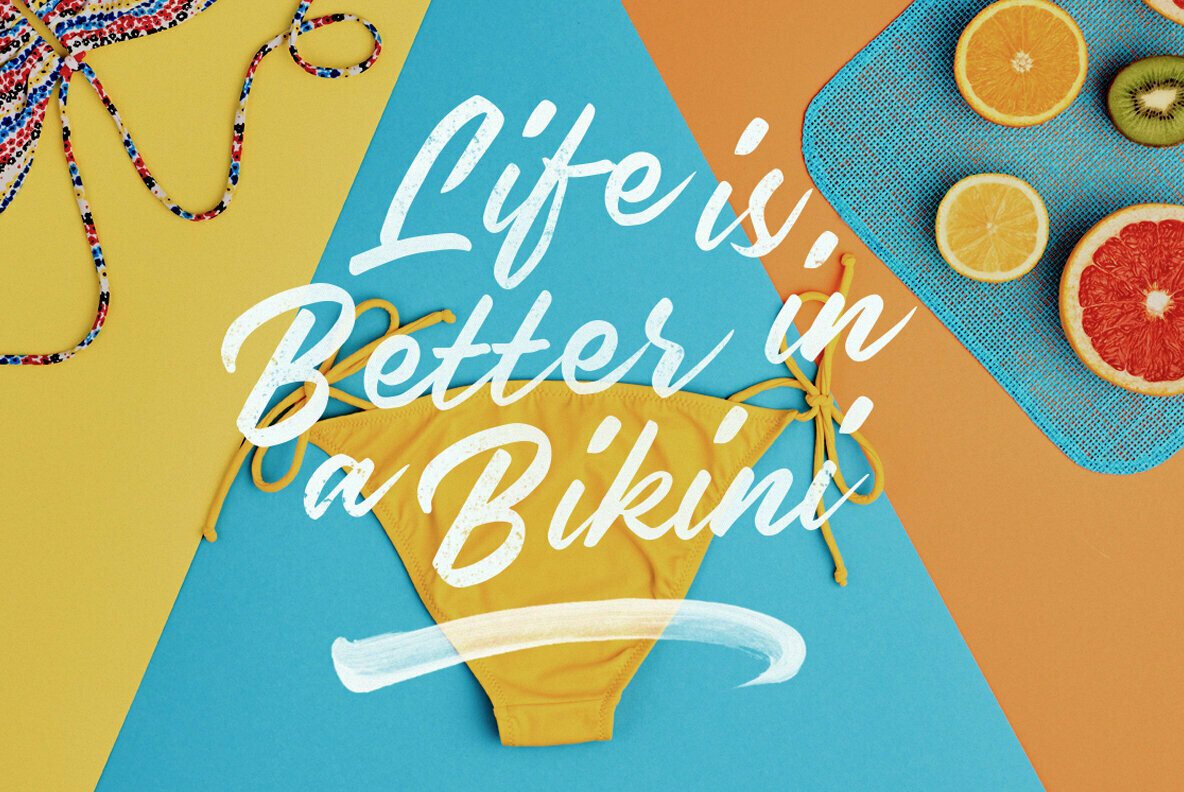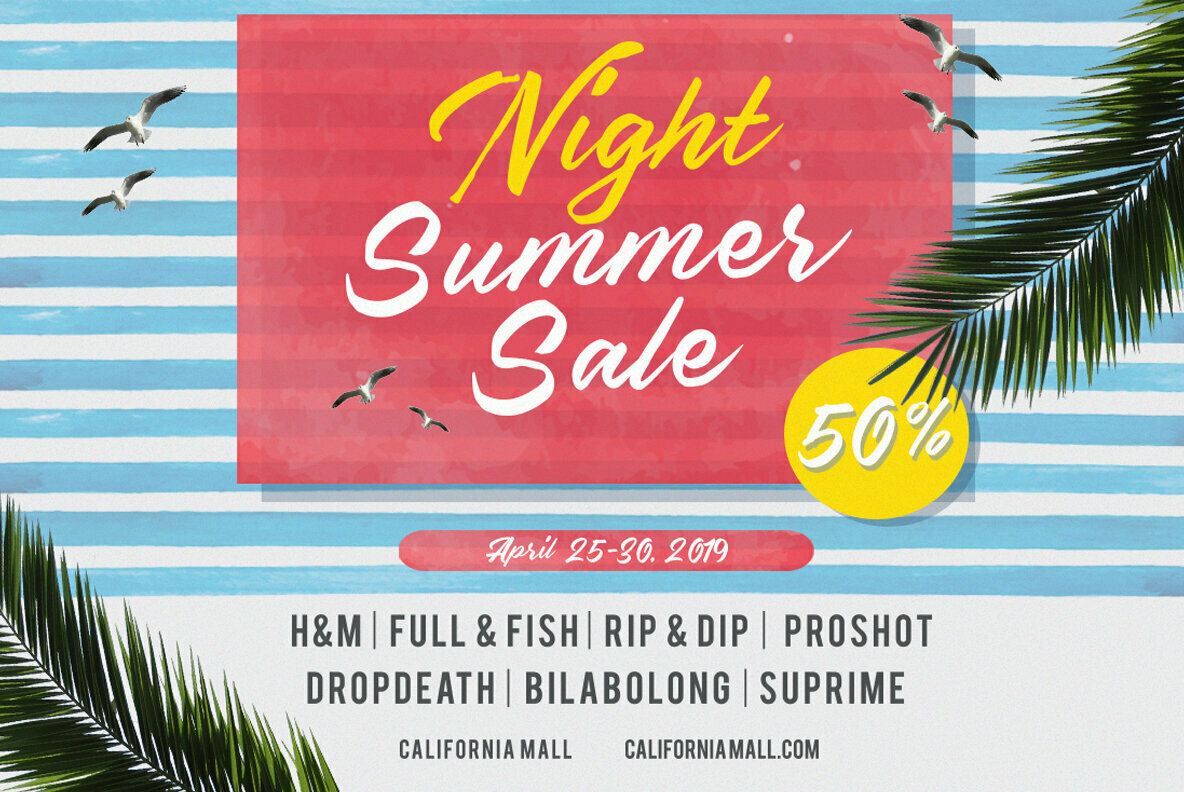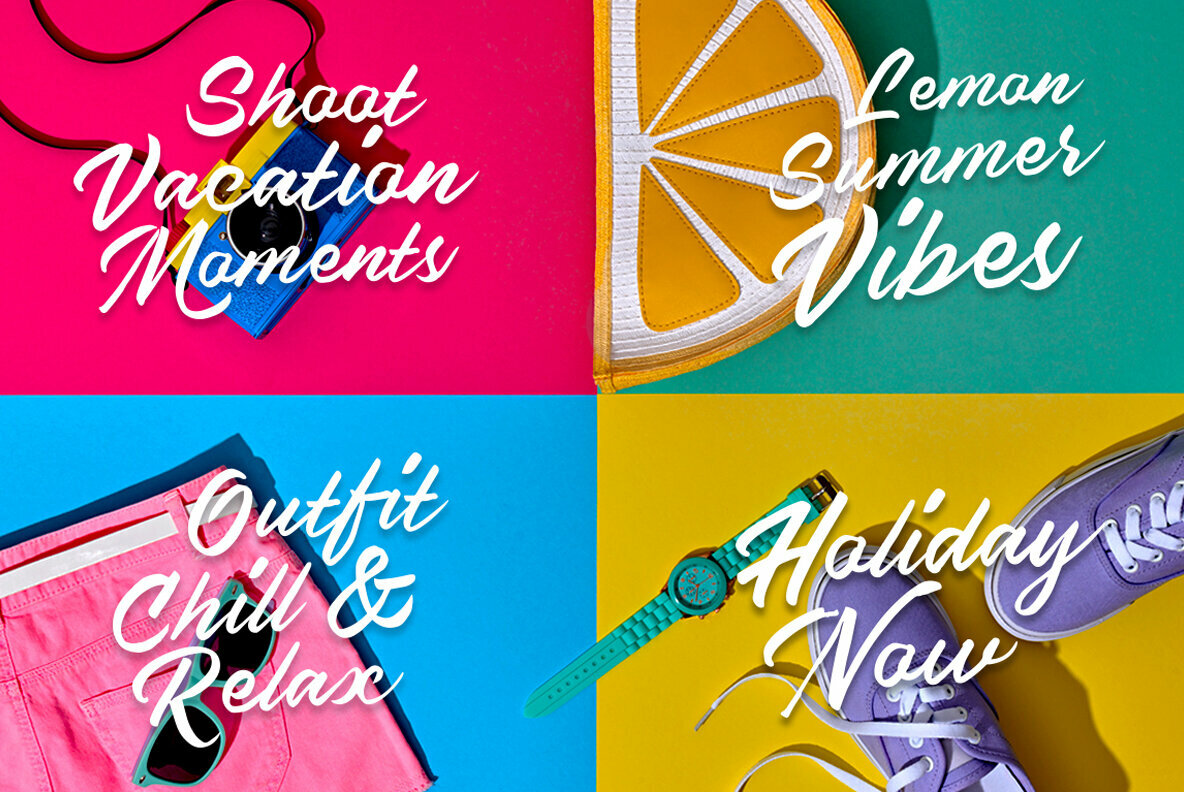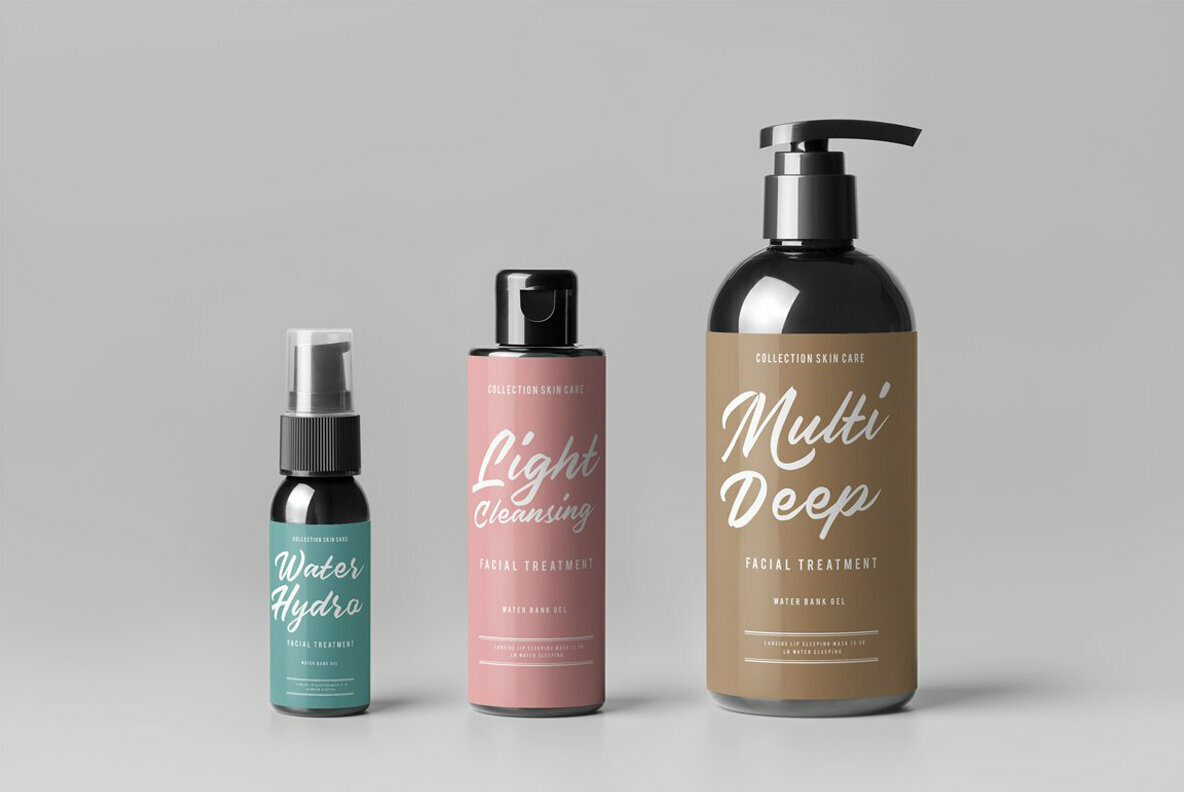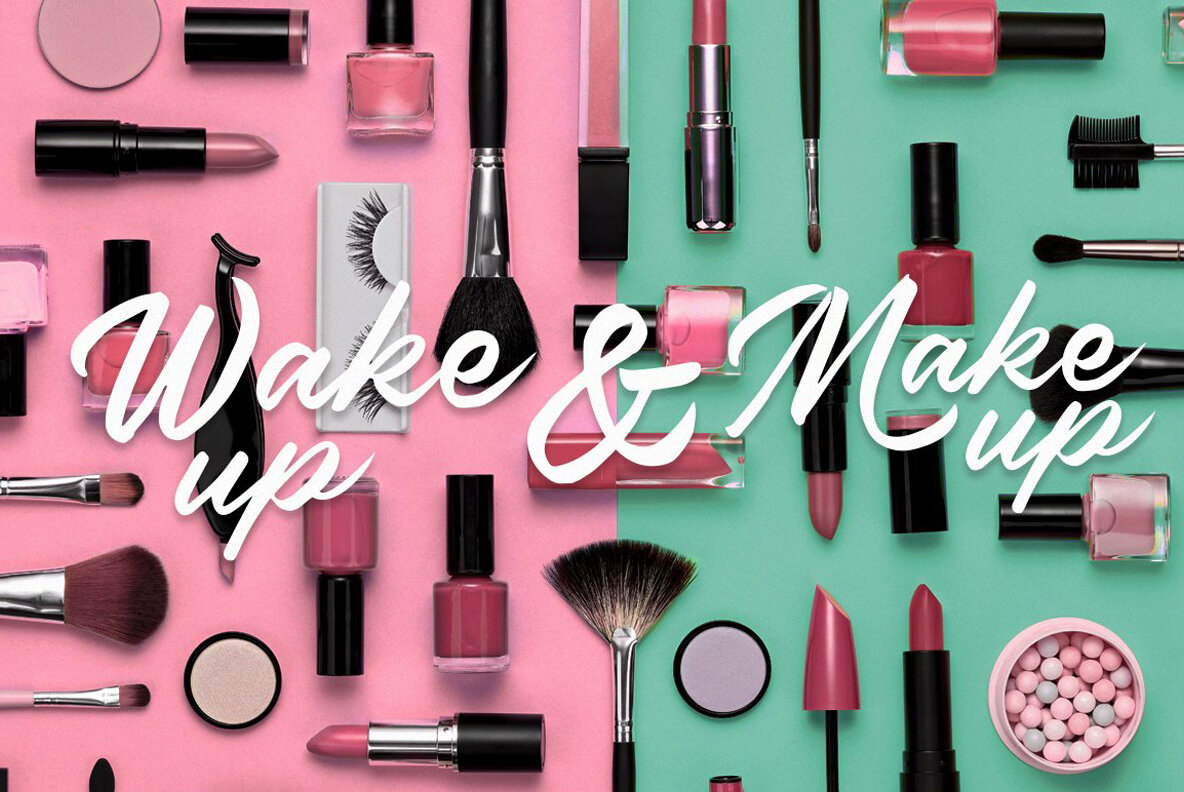
Masive Script Font
Masive Script
Masive Script is hand painted typeface designed to help you create the look of stunning custom hand-lettering.
Masive Script comes with:
- Upper and Lowercase characters,
- Punctuation,
- Numerals,
- Supports international languages and multilingual.